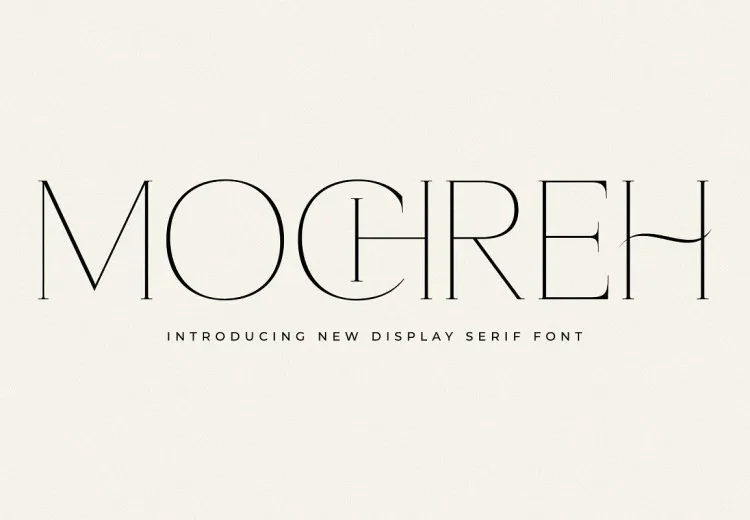
Mochreh Font
Mochreh is an elegant serif font with a contemporary flair, designed to make your typography stand out. Its refined style is perfect for crafting stylish logos, book or film titles, fashion magazine covers, clothing designs, and captivating lettering projects.
Ideal for creating elegant quotes and visually striking text, Mochreh enhances any design with its unique and modern aesthetic.